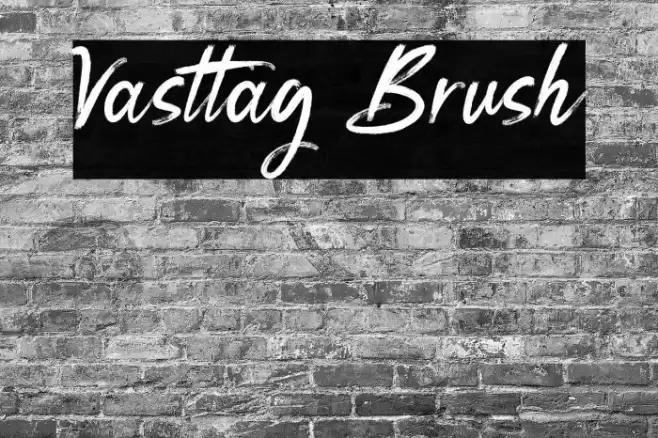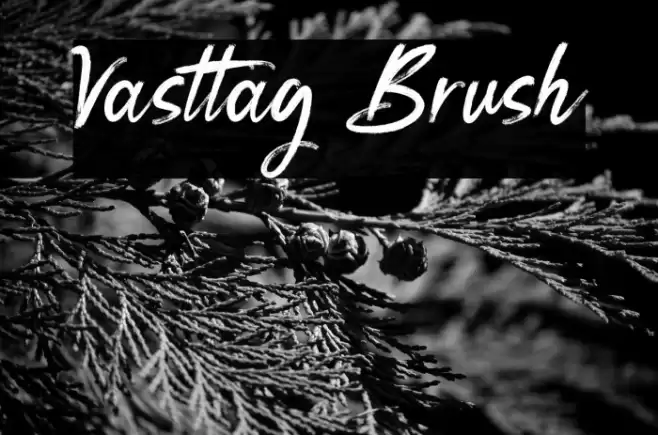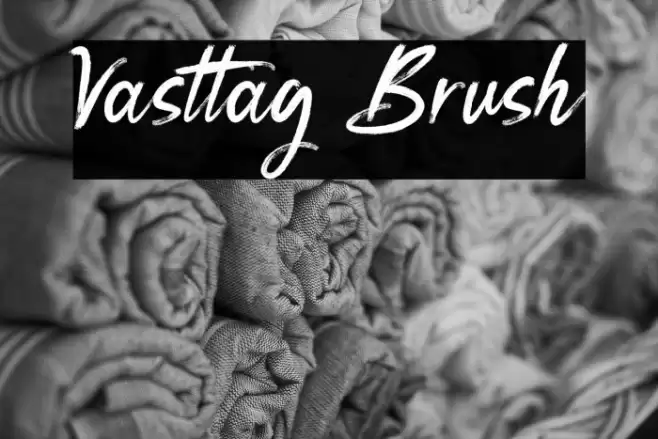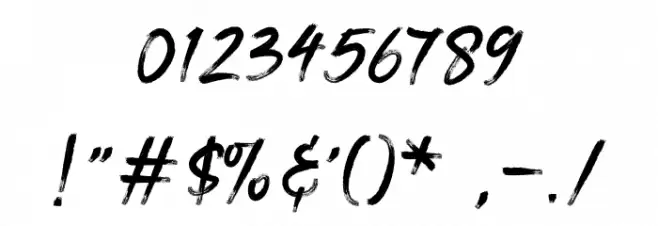
Vasttag Brush Font
Vasttag Brush Description
This font exudes a dynamic and energetic style, characterized by its brush-like strokes that convey a sense of movement and fluidity. The letters are crafted with a natural, hand-drawn appearance, giving it a personal and artistic touch. The uppercase and lowercase letters maintain a consistent flow, with varying stroke thickness that adds depth and character. The numbers and special characters complement the alphabet with the same expressive style. This font is ideal for projects that require a bold and creative statement, such as branding, posters, and artistic designs.
A dynamic brush-style font with expressive, hand-drawn strokes from Regular fonts.
- Proposed Projects: Ideal for branding, posters, artistic designs, and creative projects.
- Use Case: Logos, Headlines, Artistic designs